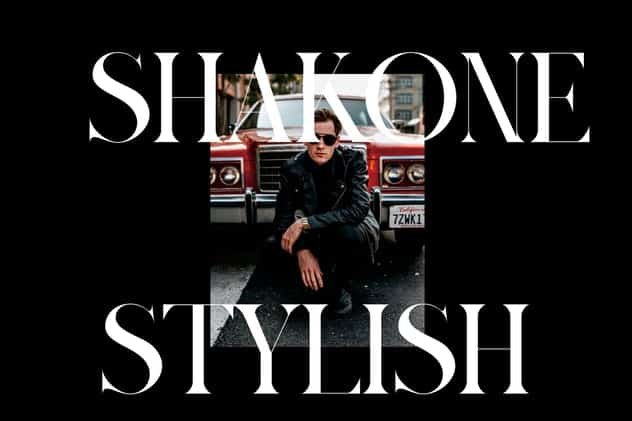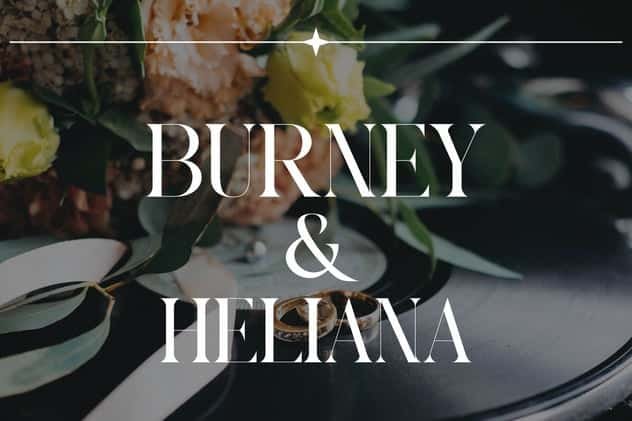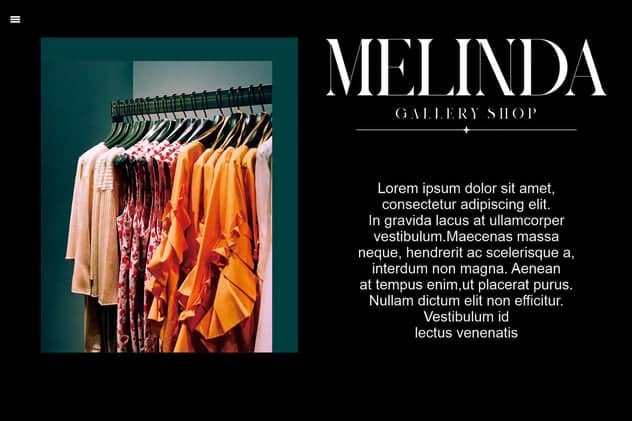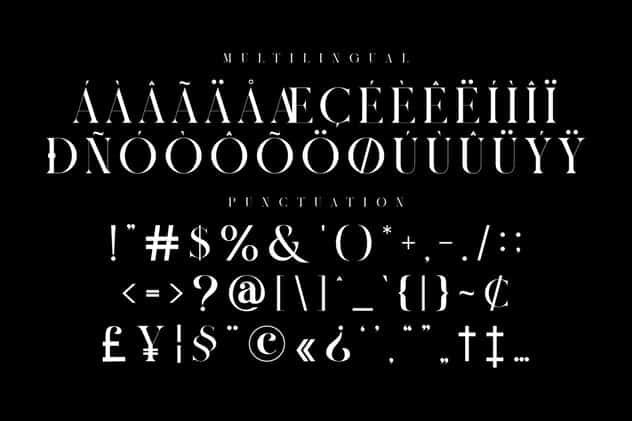
MUNIER Modern Serif Typeface Font
MUNIER Modern Sans Serif Typeface inspired by the famous minimalist logo perfect for the purposes of designing templates, brochures, videos, advertising branding, logos, invitation, layout design, elegant crafting, beauty design and other
- Standard glyphs
- International Accent